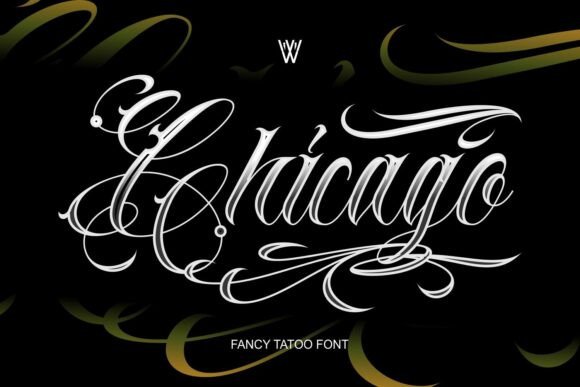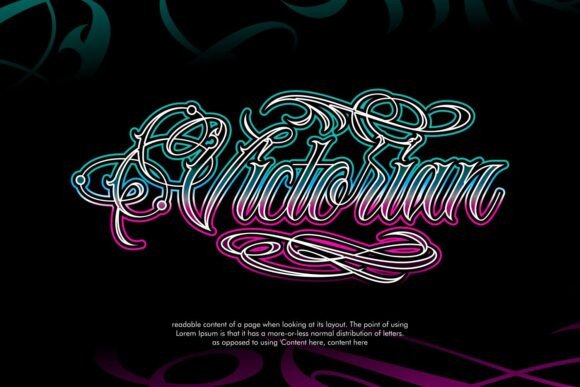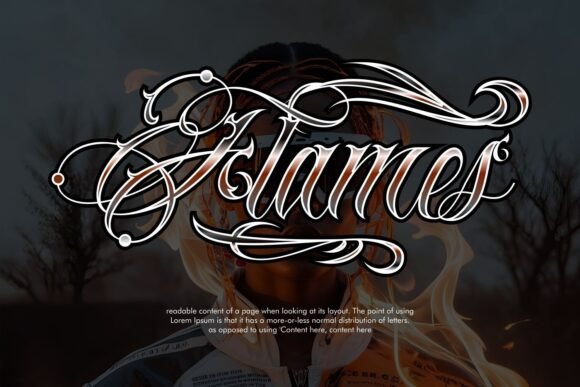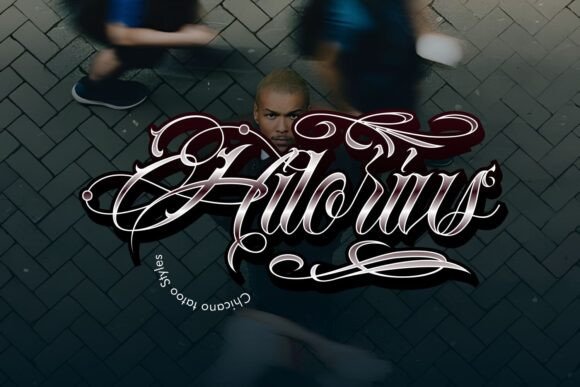
Chicago Font
About the Chicago Font
Discover the charm of Chicago Font. This font is a perfect blend of modern aesthetics and classic appeal. Unleash your creativity with Chicago, a premium collection of bold blackletter, elegant script, and Chicano calligraphy fonts tailored for tattoo artists, designers, and branding professionals. Perfect for custom tattoo lettering, streetwear branding, and vintage-inspired artwork, this font bundle captures the raw, artistic essence of tattoo culture.
Chicago Font Usage Examples
Chicago Font Example